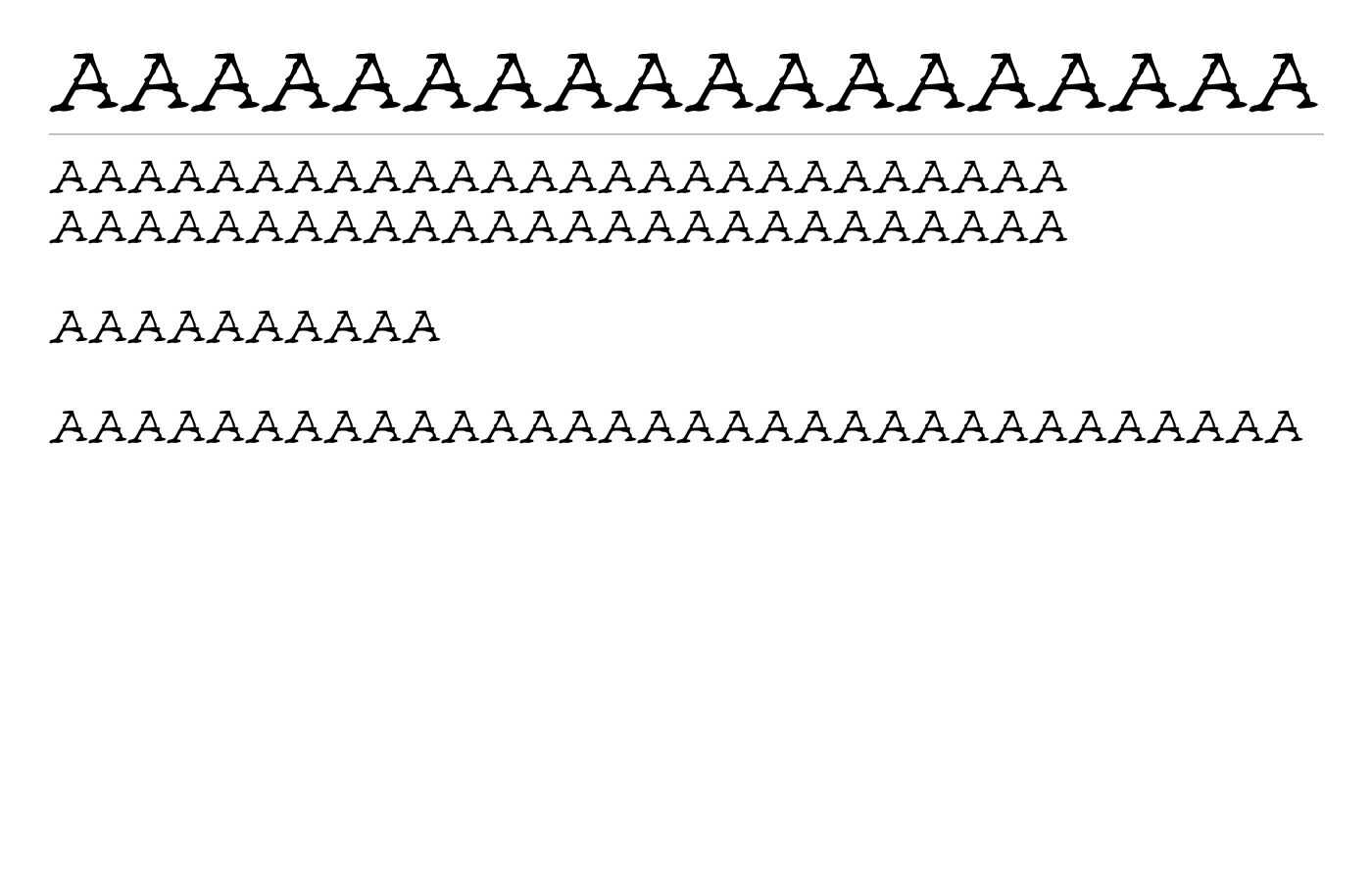
29 DAYS by marsnev is a serif font with a rustic, hand-crafted feel that combines classic elegance with a slightly distressed texture. Its medium weight and moderate contrast create a timeless, vintage look, making it ideal for branding, editorial design, and packaging that seek a charming, artisanal touch. This font works well in both headlines and short text, bringing a warm, nostalgic personality to creative projects.
29 DAYS by marsnev Font